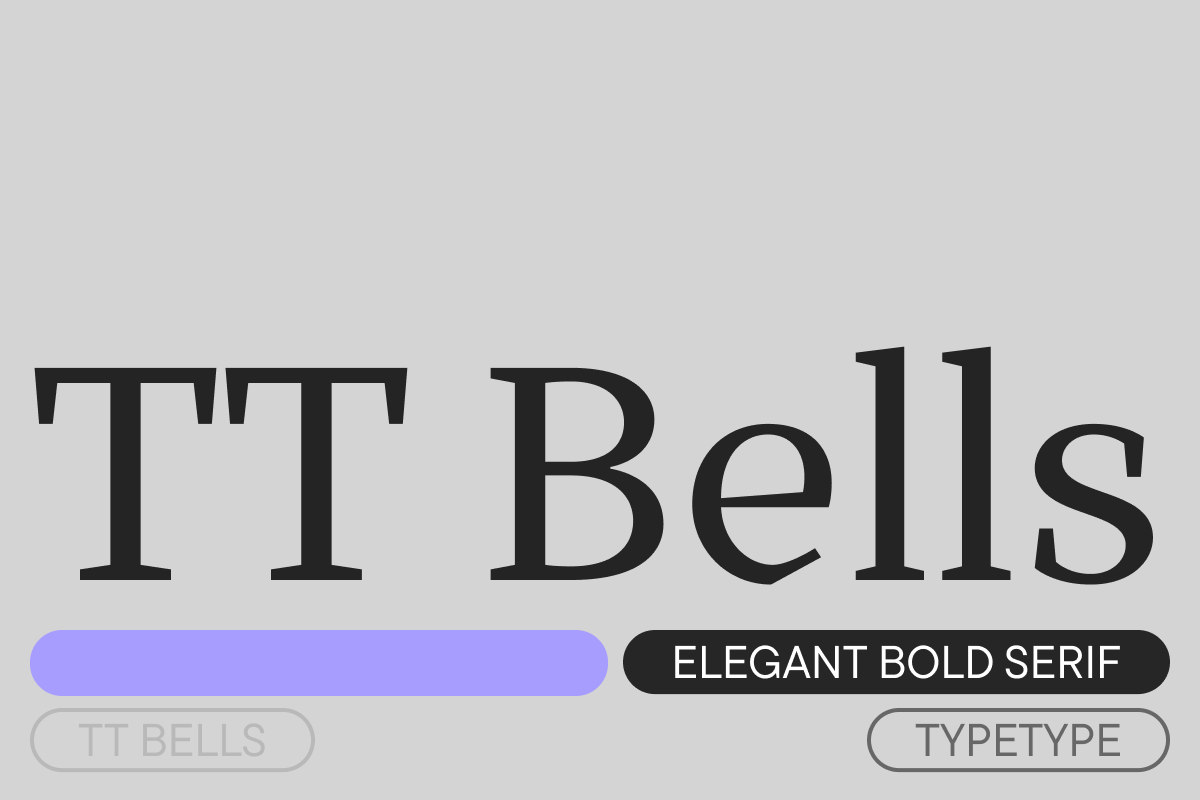
TT Bells Italic
TT Bells combines the elegant softness of antiqua with a bold character, reflected in straight terminals and arrowhead serifs. Based on broad nib writing, it borrows the signature features of old style fonts created before the digital era. We preserved their charm and added sharp, modern geometric shapes. TT Bells connects viewers to typographic origins while reminding us of the digital age, where geometry and screen readability play a leading role in type design.